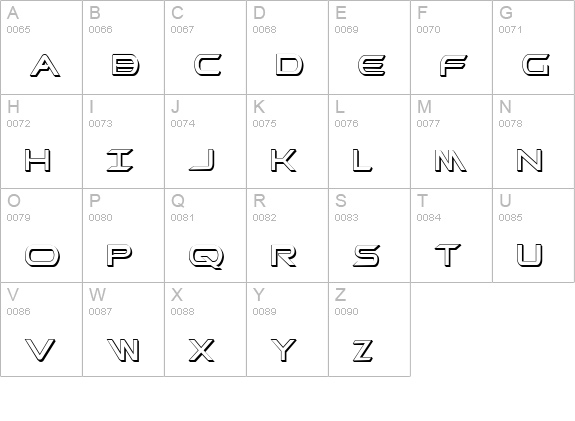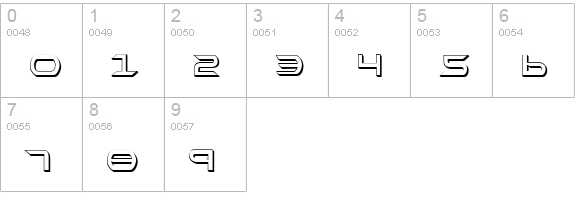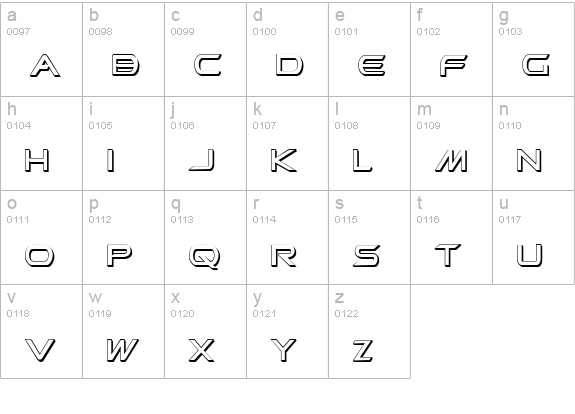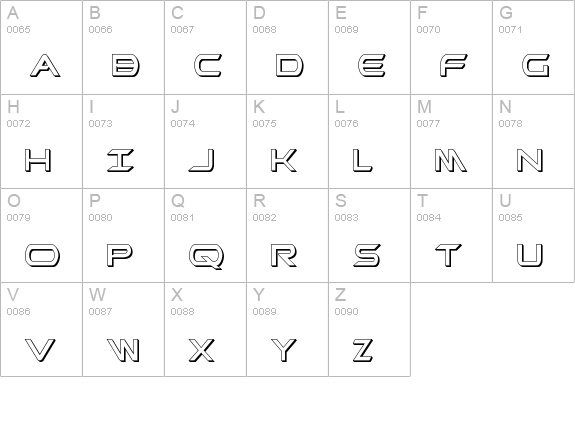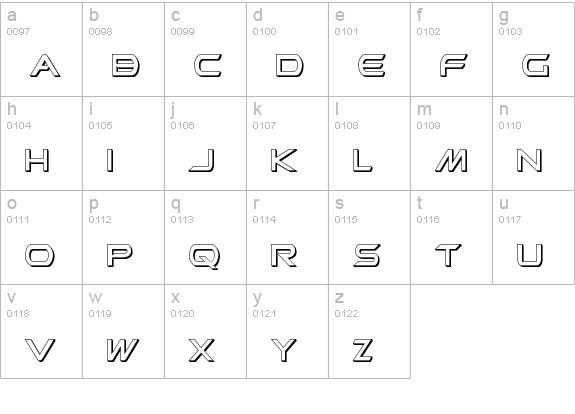
Introducing Promethean Shadow font, a sleek and modern typeface designed to make a bold statement. This versatile font features clean lines and sharp angles, giving your designs a contemporary edge. Whether you're working on a logo, branding materials, or any creative project, Promethean Shadow font is sure to stand out. With its unique character and distinctive style, Promethean Shadow font is perfect for adding a touch of sophistication to your work. Its striking appearance will captivate your audience and leave a lasting impression. Best of all, Promethean Shadow font is available for free download at FontsMarket.com. This means you can easily access this premium font and incorporate it into your projects without any cost. Don't miss out on the opportunity to elevate your designs with the stunning Promethean Shadow font today!